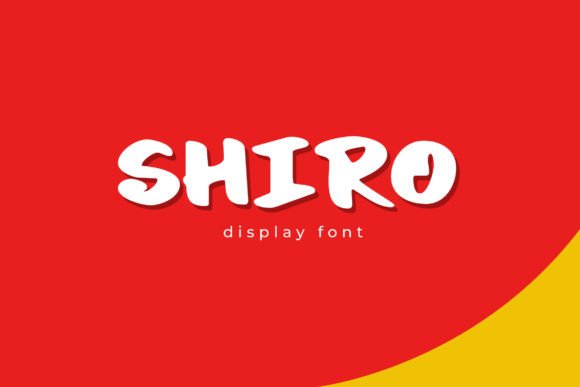
Shiro: A Handwritten Display Font for Creative Expression
If you're looking for a font that adds personality and charm to your designs, Shiro might be just what you need. This display font features only capital letters and has a soft, handwritten style that gives each word a unique, personal touch. Whether you're working on a project for yourself or a client, Shiro can bring a fresh, authentic feel to your work.
What Makes Shiro Unique?
Unlike many fonts that aim for uniformity, Shiro embraces variation. Each letter is slightly different, mimicking the natural flow of handwriting. This makes it ideal for projects where a more human, approachable look is desired. The font doesnât try to be perfectâitâs meant to feel real, like someone actually wrote it by hand.
This quality makes Shiro stand out in a sea of rigid, digital fonts. Itâs not just about aesthetics; itâs about creating an emotional connection with your audience. When people see text in Shiro, they often perceive it as more genuine and relatable.
Where and When to Use Shiro
Shiro works best in situations where a personal or creative flair is needed. Itâs not typically used for body text in long documents because its distinct style can be hard to read at smaller sizes. However, when used in headings, logos, or short phrases, it shines.
For example, if youâre designing a poster for a local art show, using Shiro in the title can make it feel more inviting and artistic. Similarly, a childrenâs book cover with Shiro might catch a childâs eye and give the book a warm, friendly vibe.
Real-World Applications of Shiro
Shiroâs versatility means it can fit into many different scenarios. Letâs explore a few practical examples:
- Children's Books: Authors and illustrators often use Shiro for titles or chapter headings. Its playful, handcrafted look complements the whimsical nature of childrenâs literature.
- Logos and Branding: Entrepreneurs who want their brand to feel personal and authentic may choose Shiro for their logo. Itâs especially effective for small businesses like cafes, boutiques, or independent artists.
- Social Media Content: Marketers and content creators can use Shiro to add a unique visual element to their posts. Whether itâs a quote, a call-to-action, or a caption, Shiro can help content stand out in a crowded feed.
- Posters and Flyers: Event organizers often use Shiro for event titles or slogans. It can make the message feel more engaging and less corporate.
- Advertising Campaigns: Advertisers looking for a more humanized approach might incorporate Shiro into their visuals. It can help create a sense of trust and familiarity with the audience.
Who Benefits from Using Shiro?
Shiro isnât just for designers. It can be useful for a wide range of users, including:
- Freelancers: Whether you're a graphic designer, writer, or marketer, Shiro can add a personal touch to your work. It helps differentiate your projects from others in a competitive market.
- Small Business Owners: For those running a boutique, a café, or a local service, Shiro can help create a brand identity that feels more personal and community-focused.
- Educators: Teachers and educators might use Shiro in lesson plans, classroom signs, or student projects to make learning more engaging and visually appealing.
- Hobbyists: Artists, crafters, and DIY enthusiasts often appreciate fonts that allow for creative expression. Shiro can be a great addition to handmade cards, custom t-shirts, or personalized gifts.
Considerations Before Using Shiro
Before diving into using Shiro, there are a few things to keep in mind:
- Readability: While Shiro is beautiful, itâs important to consider where and how it will be viewed. Avoid using it in large blocks of text or at small sizes where it may become difficult to read.
- Context: Think about the tone and purpose of your project. Shiro works well for casual or creative settings, but may not be appropriate for formal or professional documents.
- Consistency: If you're using Shiro in a larger design, ensure that it complements other elements without clashing. Balance is key to maintaining a cohesive look.
How Shiro Can Enhance Your Work
Using Shiro can lead to tangible outcomes, depending on your goals. For instance, a small business owner who uses Shiro in their branding may find that customers perceive their brand as more trustworthy and approachable. A social media manager might see increased engagement when using Shiro in post headlines, as the font draws attention and feels more authentic.
Even in personal projects, Shiro can make a difference. A blogger who uses it in their websiteâs title or section headers may create a more memorable and visually interesting experience for readers. Itâs not just about styleâitâs about how the font contributes to the overall message and impact of the work.
Final Thoughts
Shiro is more than just a fontâitâs a tool for expressing creativity and individuality. Its handwritten style brings a sense of warmth and authenticity that many other fonts lack. Whether youâre designing for a client, creating content for your own brand, or simply experimenting with typography, Shiro offers a fresh and unique option that can elevate your work.